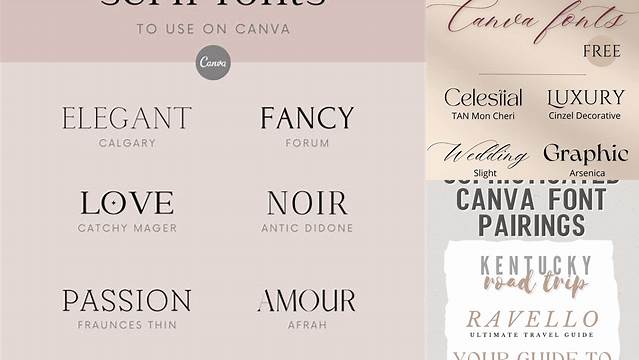
Elegant Fonts In Canva: Simple Typography Guide
Are you looking to elevate your designs with simple but elegant fonts in Canva? You've come to the right place! Choosing the right font can make all the difference in how your message is perceived. It’s like picking the perfect outfit for an occasion; you want it to be stylish, appropriate, and memorable. In this article, we’ll explore a variety of fonts that strike the perfect balance between simplicity and elegance, ensuring your designs are both eye-catching and easy to read. We'll dive into why typography matters, what makes a font elegant, and, most importantly, provide you with a curated list of fonts available in Canva that fit the bill. So, whether you're designing a wedding invitation, a business presentation, or social media graphics, get ready to discover the fonts that will help your creations shine. Let's get started and make your designs truly stand out with the perfect simple and elegant fonts!
Why Typography Matters in Design
Let's dive deep into why typography is so crucial in design. Think of typography as the voice of your design. Just like a speaker's tone and inflection can impact their message, the fonts you choose communicate more than just words. Typography sets the mood, conveys personality, and establishes hierarchy. It’s not just about readability; it’s about creating an emotional connection with your audience.
First off, legibility and readability are key. Legibility refers to how easily individual letters can be distinguished, while readability is about how comfortably words and blocks of text can be read. Elegant fonts should never sacrifice these qualities. You want your audience to focus on your message, not struggle to decipher your font choices. Imagine receiving a beautifully designed invitation with an illegible font – frustrating, right?
Moreover, typography plays a significant role in branding. Consistent use of fonts across your brand materials (website, social media, business cards, etc.) helps create a cohesive and recognizable identity. For instance, if your brand aims to project sophistication and trust, a classic serif font might be a better choice than a playful script font. The right font can instantly communicate your brand's values and personality.
Emotional impact is another critical aspect. Fonts have the power to evoke feelings and set the tone. A delicate script font can add a touch of romance and elegance, perfect for wedding invitations or feminine brands. Conversely, a bold sans-serif font can convey confidence and strength, ideal for corporate presentations or tech companies. Consider the emotions you want your design to evoke and choose fonts that align with that feeling.
Finally, effective typography establishes a clear visual hierarchy. Using different font sizes, weights, and styles guides the reader’s eye and helps them navigate the information easily. Headings should be prominent, subheadings should stand out from the body text, and important information should be emphasized. A well-organized typography system makes your design more accessible and engaging. So, next time you're working on a design, remember that typography is more than just choosing a pretty font; it's about crafting a cohesive and impactful visual message.
What Makes a Font Elegant?
So, what exactly makes a font elegant? It's more than just a pretty typeface; it’s a combination of several key elements that work together to create a sophisticated and refined look. Let's break down the characteristics of elegant fonts to help you better understand what to look for in your designs.
One of the primary characteristics of an elegant font is its simplicity. Often, less is more. Elegant fonts tend to avoid excessive ornamentation or overly stylized details. Instead, they focus on clean lines, balanced proportions, and subtle flourishes. Think of classic serif fonts like Garamond or Didot; their understated elegance comes from their refined simplicity. These fonts have a timeless quality that makes them suitable for a wide range of applications, from books to branding materials.
Serif fonts are often associated with elegance due to their historical roots and traditional appearance. The small decorative strokes (serifs) at the end of the letterforms give these fonts a polished and formal feel. However, not all serif fonts are created equal. The key is to choose serifs that are delicate and refined rather than heavy or clunky. Fonts like Times New Roman and Georgia are reliable choices, but exploring less common serifs can add a unique touch of elegance to your designs.
Contrast is another essential element. Elegant fonts often feature a noticeable contrast between thick and thin strokes. This variation adds visual interest and sophistication, making the font more dynamic and appealing. High-contrast fonts like Bodoni or Baskerville are excellent examples of this principle in action. The sharp transitions between thick and thin lines give these fonts a distinctive and elegant appearance.
Spacing and kerning play a crucial role in the overall elegance of a font. Proper spacing between letters and words ensures readability and prevents the text from looking cluttered. Kerning, which is the adjustment of space between individual letter pairs, is especially important for elegant fonts. Subtle adjustments to kerning can make a significant difference in the visual harmony of the text. Fonts with generous spacing and careful kerning tend to look more refined and polished.
Finally, the overall balance and proportions of the font contribute to its elegance. Elegant fonts typically have balanced letterforms with pleasing proportions. The height, width, and weight of the letters are harmoniously related, creating a visually appealing whole. Fonts that are too condensed or too extended can look awkward or unbalanced. So, when choosing an elegant font, pay attention to the overall shape and proportions of the letterforms. By considering these characteristics, you can select fonts that truly embody elegance and enhance your design projects.
Top Simple and Elegant Fonts in Canva
Now, let’s get to the fun part! We’ll explore some of the top simple and elegant fonts you can find right within Canva. Canva is a fantastic tool for designers of all levels, and it offers a wide array of fonts that can help you achieve that sophisticated look. We've curated a list of fonts that are both stylish and easy to use, perfect for a variety of design projects. So, whether you're working on invitations, presentations, logos, or social media graphics, these fonts will add a touch of elegance to your creations.
Serif Fonts for Timeless Elegance
Serif fonts are classic choices for adding a touch of timeless elegance to your designs. The small strokes at the end of the letters give them a polished and refined appearance. Here are some standout serif fonts in Canva:
- Playfair Display: This font is a high-contrast serif that exudes sophistication. Its elegant letterforms and delicate serifs make it perfect for headlines, titles, and branding materials. Playfair Display has a timeless quality that works well in both modern and traditional designs. Use it for invitations, posters, or any project where you want to make a strong yet elegant statement.
- Lora: Lora is a well-balanced serif font with roots in calligraphy. It has a contemporary feel while still maintaining a classic elegance. Lora is highly readable, making it a great choice for both body text and headings. Its versatility makes it a go-to font for websites, blogs, and print materials. The slightly curved serifs add a touch of personality without sacrificing sophistication.
- Merriweather: Designed specifically for on-screen reading, Merriweather is a sturdy and readable serif font. It has a slightly condensed letterform and a tall x-height, which enhances its legibility. Merriweather is a great choice for longer blocks of text, such as articles, reports, and website content. Its classic appearance makes it a reliable option for a wide range of projects.
Sans-Serif Fonts for Modern Sophistication
Sans-serif fonts, which lack the small strokes found in serif fonts, offer a modern and clean aesthetic. They are often associated with simplicity and sophistication. Here are some excellent sans-serif fonts available in Canva:
- Montserrat: This font has become incredibly popular for its clean lines and geometric design. Montserrat is a versatile sans-serif that works well in a variety of contexts, from logos and branding to website headers and body text. Its modern and sophisticated appearance makes it a great choice for businesses looking to convey a sense of professionalism and innovation. The different weights available allow for flexibility in your designs.
- Raleway: Raleway is another popular sans-serif font that exudes elegance. It features a slightly more delicate design than Montserrat, making it ideal for projects that require a subtle touch of sophistication. Raleway is particularly well-suited for logos, invitations, and website headers. Its clean lines and refined letterforms create a polished and professional look.
- Open Sans: Known for its readability and clean design, Open Sans is a versatile sans-serif font that works well in a variety of contexts. It’s a great choice for body text, as it is easy on the eyes and highly legible. Open Sans is also suitable for headings and subheadings, providing a clean and modern contrast to more decorative fonts. Its neutral appearance makes it a reliable option for a wide range of projects.
Script and Decorative Fonts for a Touch of Flair
If you want to add a touch of flair to your designs, script and decorative fonts can be a great option. However, it’s important to use them sparingly to maintain an elegant overall look. Here are some elegant script and decorative fonts in Canva:
- Great Vibes: This flowing script font is perfect for adding a touch of romance and elegance to your designs. Great Vibes is ideal for wedding invitations, thank you cards, and other projects where you want to convey a sense of beauty and sophistication. Use it for headings and titles, but be careful not to overuse it in body text, as it can be less legible in large blocks.
- Parisienne: With its delicate and flowing letterforms, Parisienne exudes Parisian chic. This script font is perfect for adding a touch of elegance and sophistication to your designs. It works well for logos, invitations, and other projects where you want to create a sense of style and refinement. Like Great Vibes, it’s best used sparingly to maintain readability.
- Playfair Display SC: This small caps version of Playfair Display offers a unique twist on the classic serif font. It’s perfect for adding a touch of formality and elegance to your designs. Use it for headings, subheadings, or short blocks of text to create a sophisticated and polished look. The small caps give it a distinctive appearance that stands out without being overly decorative.
These are just a few of the many simple and elegant fonts available in Canva. Experiment with different combinations to find the perfect typography for your projects. Remember, the key to elegant design is balance and restraint. Choose fonts that complement each other and enhance your message, and you'll create designs that are both beautiful and effective.
Tips for Pairing Fonts Elegantly
Pairing fonts can sometimes feel like trying to match socks in a dark room – tricky! But fear not, guys! With a few simple guidelines, you can master the art of elegant font pairing. The right combination of fonts can elevate your designs, creating a polished and professional look. Let’s dive into some tips to help you pair fonts like a pro.
First off, contrast is key. One of the most effective ways to create a visually appealing design is to pair fonts that offer a strong contrast. This doesn’t mean choosing fonts that clash; rather, it means selecting fonts that have distinct personalities. A classic approach is to pair a serif font with a sans-serif font. For example, you might pair Playfair Display (a serif) with Montserrat (a sans-serif). The contrast between the formal serifs and the clean sans-serif creates a balanced and harmonious look.
Another helpful tip is to choose one dominant font. This means selecting one font to use for headings and titles and another for body text. The dominant font should be more visually striking and attention-grabbing, while the secondary font should be clean and readable. This approach helps establish a clear visual hierarchy, making your design easier to navigate. For instance, you could use Great Vibes (a script font) for headings and Lora (a serif font) for the body text. The elegant script font draws the eye, while the readable serif font ensures that the body text is easy to read.
Consider the mood and tone of your design when pairing fonts. The fonts you choose should align with the overall message and aesthetic you’re trying to convey. If you’re designing something formal and sophisticated, you might opt for classic serif fonts paired with a clean sans-serif. For a more modern and minimalist design, you could pair two different sans-serif fonts. Think about the feeling you want your design to evoke and choose fonts that support that feeling.
Limit the number of fonts you use in a single design. A general rule of thumb is to stick to two or three fonts at most. Using too many fonts can make your design look cluttered and chaotic. By limiting your font choices, you create a more cohesive and professional look. Focus on finding a strong pairing or trio of fonts that work well together, and stick with those throughout your design.
Finally, experiment and trust your eye. While there are guidelines to follow, don’t be afraid to try different combinations and see what works best for your specific project. Canva makes it easy to experiment with different fonts and see how they look together. Pay attention to how the fonts interact with each other and how they impact the overall design. Ultimately, the best font pairing is one that feels right to you and effectively communicates your message. By keeping these tips in mind, you’ll be pairing fonts elegantly in no time!
Common Mistakes to Avoid When Choosing Fonts
Choosing the right fonts can be a game-changer, but making the wrong choices can derail your design faster than you can say "Comic Sans." To ensure your designs exude elegance and professionalism, let’s look at some common mistakes to avoid when choosing fonts. Steering clear of these pitfalls will help you create visually appealing and effective designs.
One of the most frequent errors is overusing decorative or script fonts. While these fonts can add a touch of flair and personality, they are best used sparingly. Decorative and script fonts often have intricate details and can be difficult to read in large blocks of text. Using them for headings or short titles can be effective, but avoid using them for body text or lengthy paragraphs. Overusing these fonts can make your design look cluttered and unprofessional. Instead, opt for cleaner, more readable fonts for the main body of your text.
Another common mistake is ignoring legibility. An elegant font is useless if your audience can’t read it. Legibility refers to how easily individual letters can be distinguished from one another. Some fonts, particularly those with very thin strokes or unusual letterforms, can be challenging to read, especially in smaller sizes or on screens. Always prioritize legibility when choosing fonts. Test your fonts in different sizes and contexts to ensure they are easy to read. If your audience has to strain their eyes to decipher your message, you’ve chosen the wrong font.
Poor contrast is another pitfall to watch out for. Contrast is essential for readability and visual appeal. This applies not only to font pairings but also to the contrast between the font color and the background. If your text blends into the background, it will be difficult to read. Similarly, if you pair fonts that are too similar in style, the design can look monotonous and lack visual interest. Ensure there is enough contrast between your fonts and background to make your text stand out.
Inconsistency in font usage can also detract from the elegance of your design. Using too many different fonts or switching fonts haphazardly throughout a design can create a chaotic and unprofessional look. Stick to a consistent font palette and use the same fonts for similar elements throughout your design. This helps create a cohesive and polished look. A good rule of thumb is to choose two or three fonts and use them consistently across your project.
Finally, failing to consider the context of your design is a common mistake. The fonts you choose should be appropriate for the project you’re working on. A playful script font might be perfect for a party invitation but completely inappropriate for a corporate presentation. Think about your target audience and the message you want to convey, and choose fonts that align with those considerations. By avoiding these common mistakes, you’ll be well on your way to choosing elegant and effective fonts for your designs.
Elevate Your Designs with Elegant Typography
In conclusion, mastering the art of typography is essential for elevating your designs with elegant typography. Choosing the right fonts can transform your projects from ordinary to extraordinary, conveying the right message and creating a lasting impression. We’ve explored why typography matters, what makes a font elegant, and some top font choices in Canva. We’ve also discussed tips for pairing fonts and common mistakes to avoid.
Remember, typography is more than just choosing a pretty font. It’s about crafting a visual voice for your design. The fonts you select communicate personality, set the mood, and establish hierarchy. By paying attention to details like legibility, contrast, and consistency, you can create designs that are both visually appealing and effective.
Elegant fonts often strike a balance between simplicity and sophistication. They feature clean lines, balanced proportions, and subtle flourishes. Serif fonts, with their traditional appearance, are classic choices for adding elegance, while sans-serif fonts offer a more modern and minimalist aesthetic. Script and decorative fonts can add flair, but should be used sparingly to avoid overwhelming the design.
Canva offers a fantastic range of fonts that can help you achieve an elegant look. From timeless serifs like Playfair Display and Lora to modern sans-serifs like Montserrat and Raleway, there are plenty of options to choose from. Experiment with different combinations to find the perfect typography for your projects.
Pairing fonts effectively is a key skill in design. Contrast is essential, so try pairing a serif font with a sans-serif font. Choose one dominant font for headings and another for body text to create a clear visual hierarchy. Limit the number of fonts you use and ensure they align with the mood and tone of your design.
Finally, avoid common mistakes like overusing decorative fonts, ignoring legibility, and failing to consider the context of your design. By steering clear of these pitfalls, you’ll create designs that are both beautiful and professional. So, go ahead and experiment with the simple but elegant fonts in Canva. Elevate your designs, convey your message effectively, and leave a lasting impression with the power of typography. Happy designing!